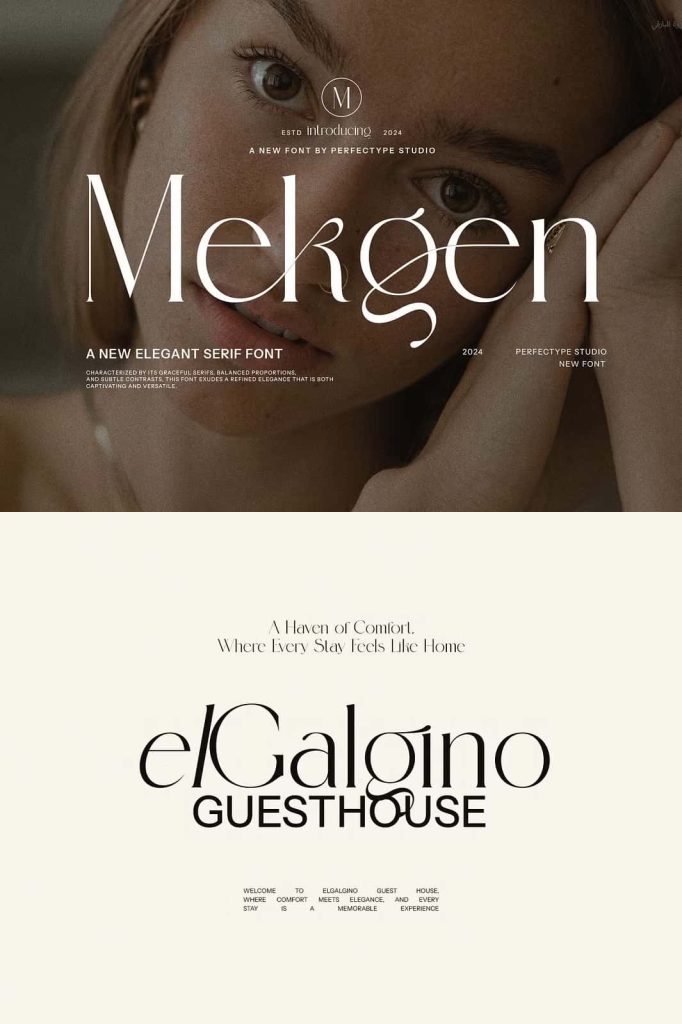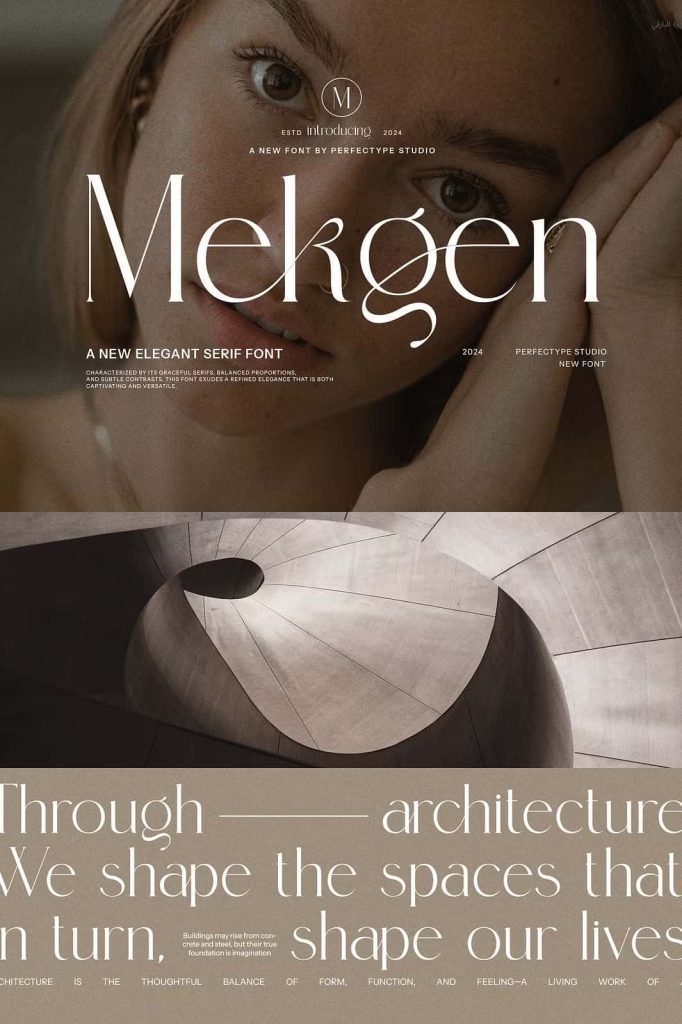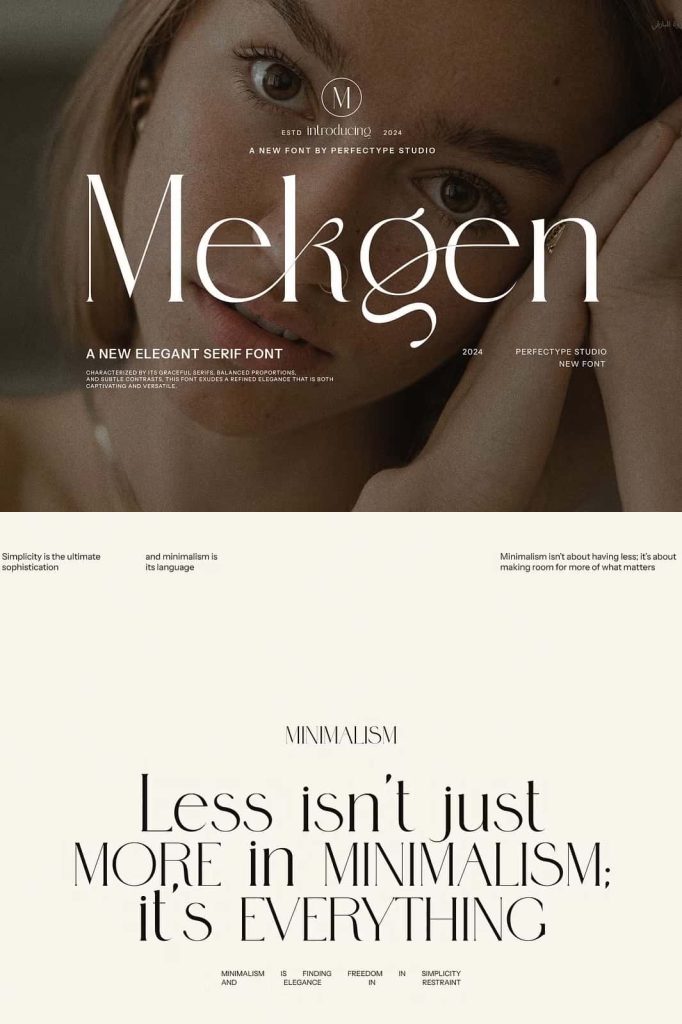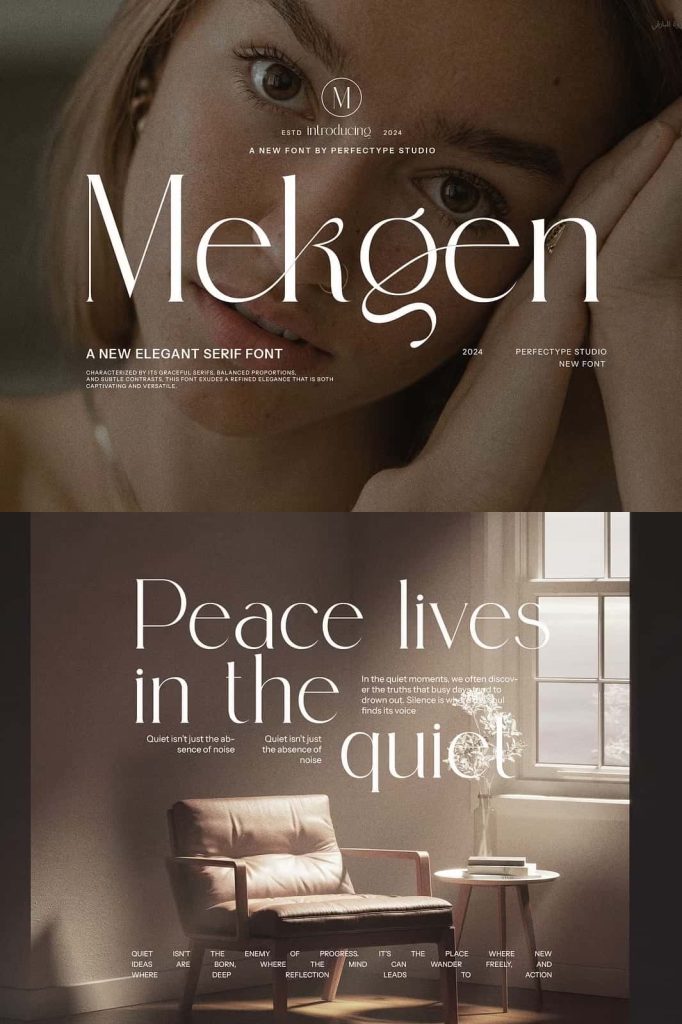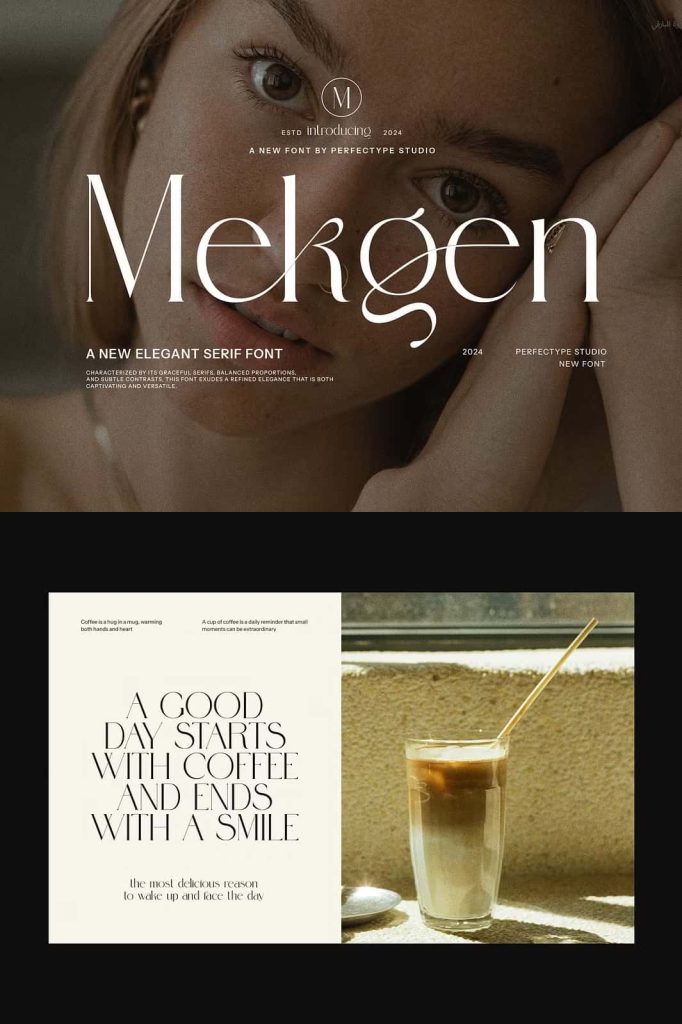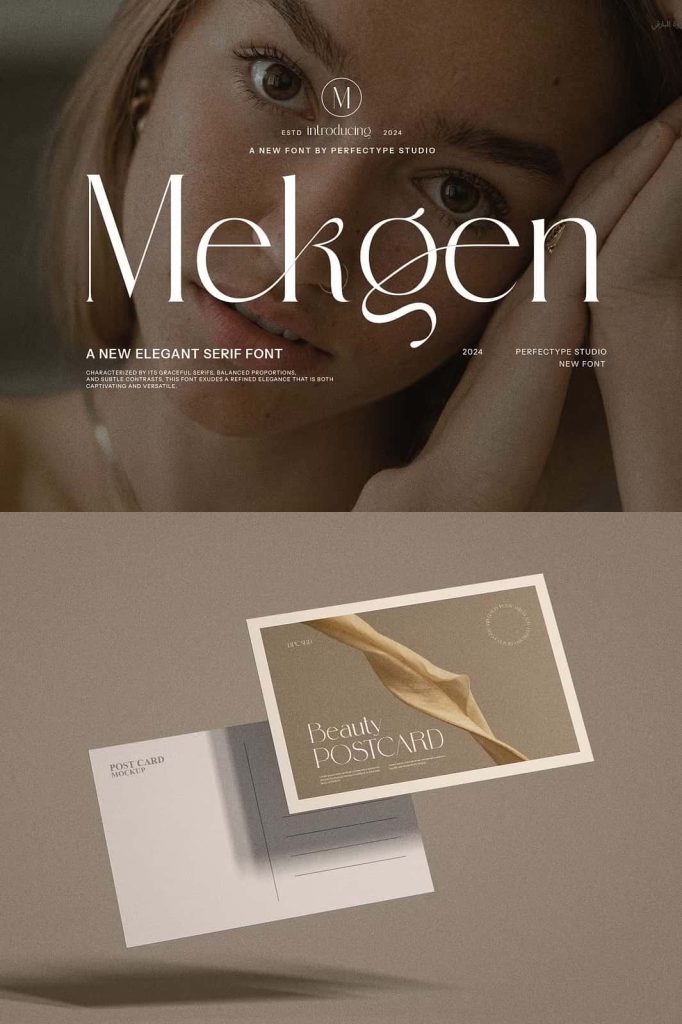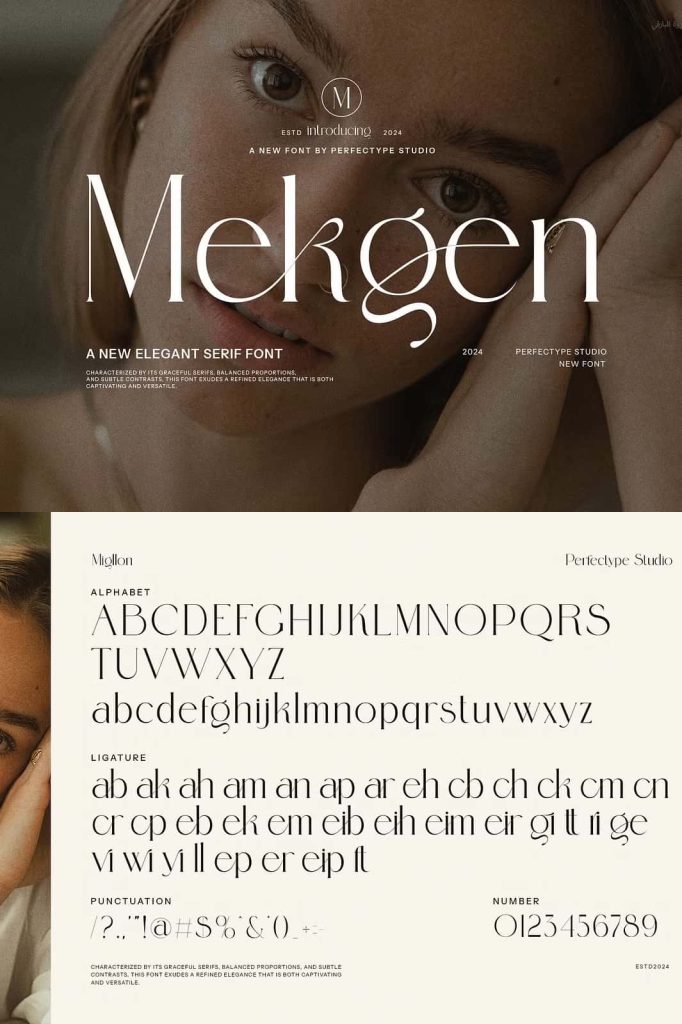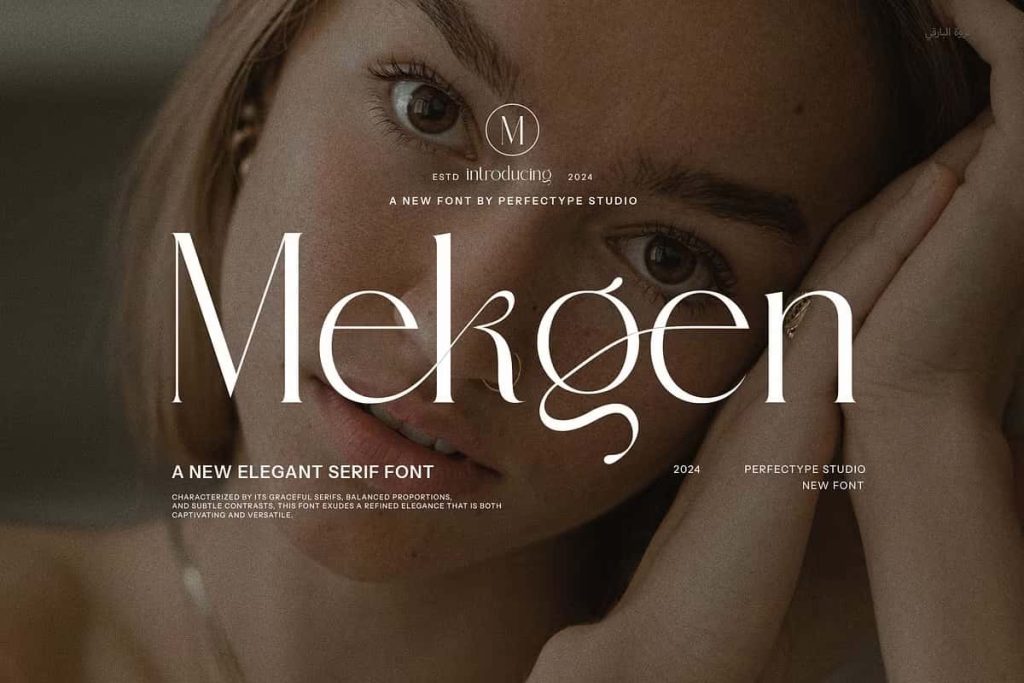
Mekgen Ligature Serif Font
This is a very elegant and classy font for all branding and logo designs This type of serif font is created with elegance and luxury so it is perfect for all your design needs. This font is equipped with many beautiful and unique ligature and alternate options.